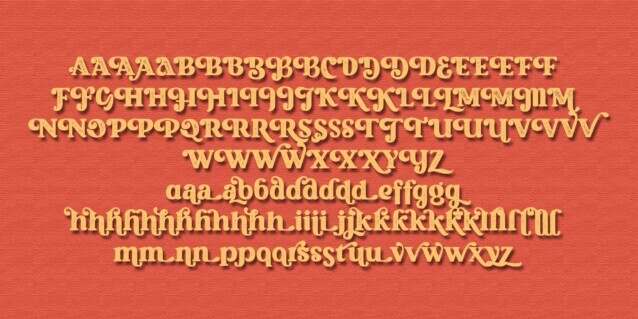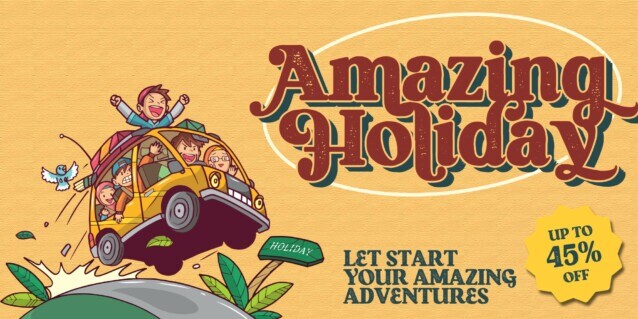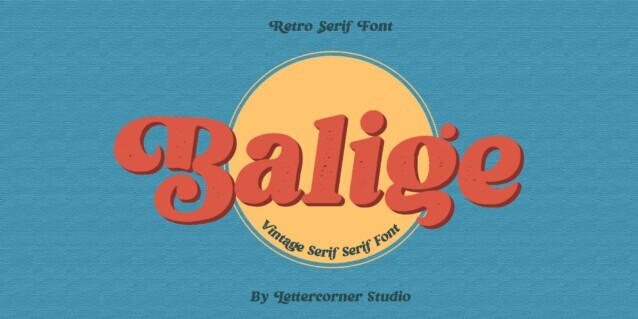
Balige Vintage Font
Balige Vintage retro with stamp effect an artistic touch elegant modern yet vintage the as well as a unique blend of ligatures a letter, so that the authors compose it with a and little swirly embedding, so that a modern font is formed and ready to make a statement by adding elegant and unique flair to your next design project.
Balige Vintage can be used for various purposes such as Magazine Title, Poster, Logo, T-Shirt, Sub Title, Business cards, Magazines, Book Covers, Wedding Invitations,Templates Instagram Story Post, Greeting Cards, Quotes, etc.